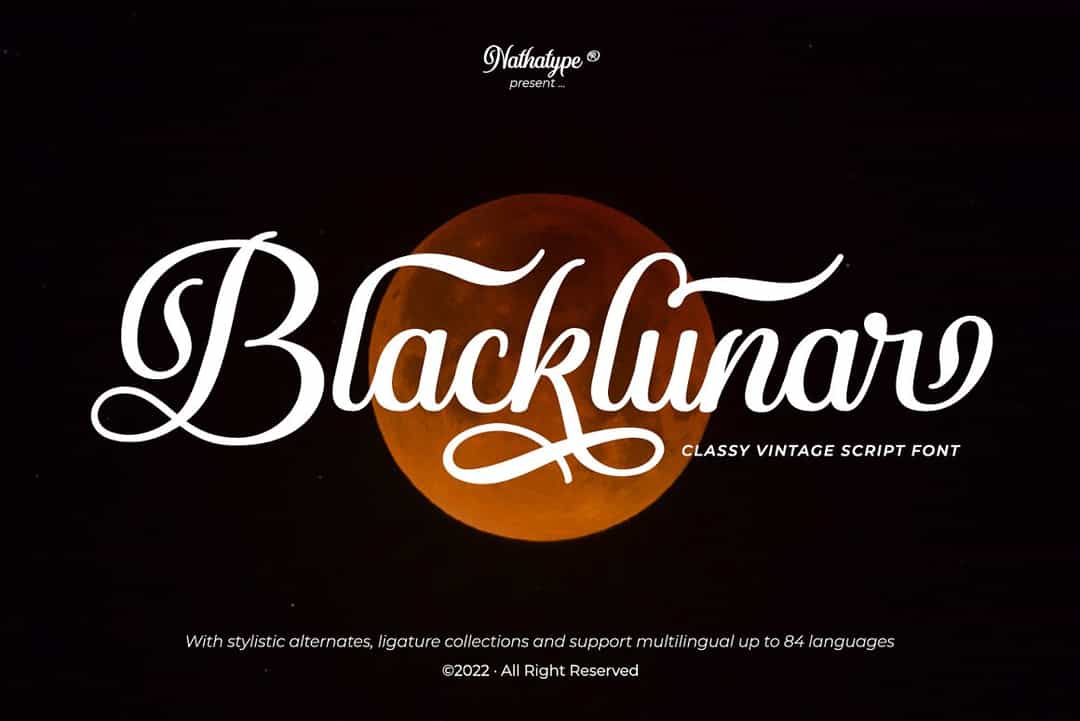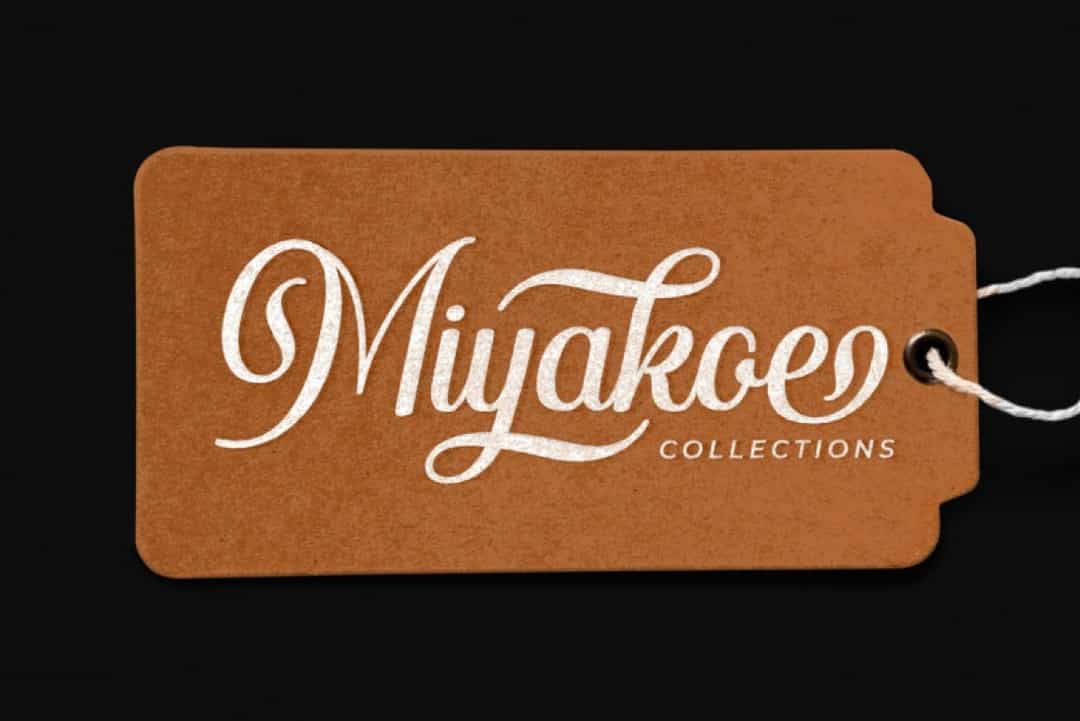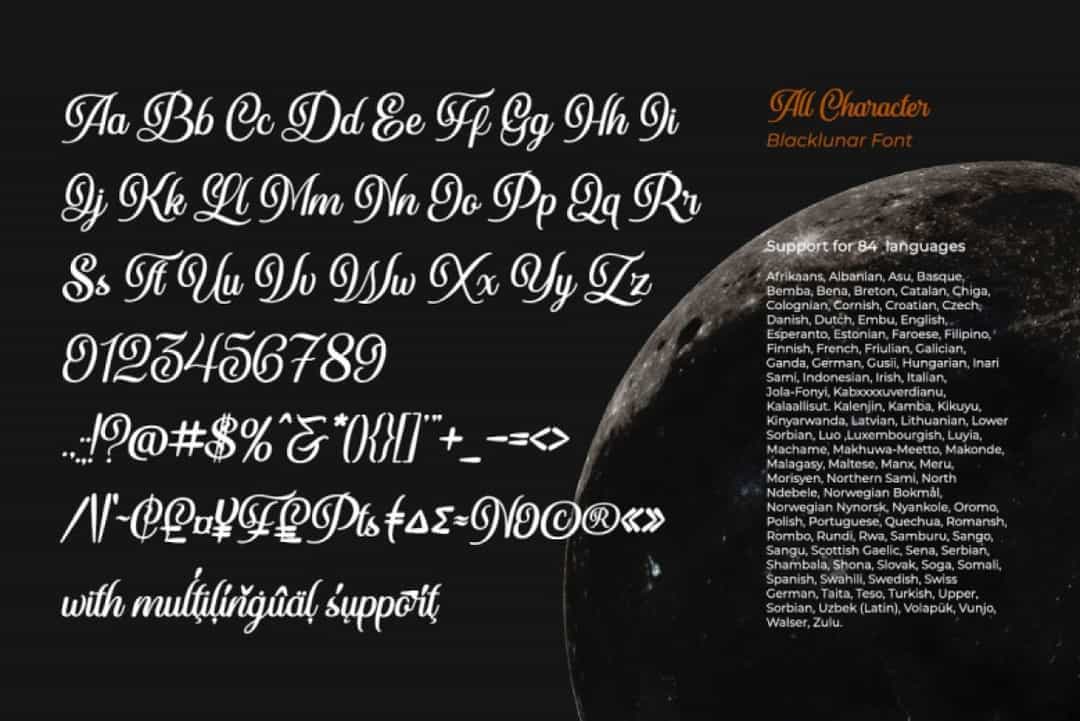
Blacklunar is a calligraphy font designed to impress, featuring vintage style that makes people smile. Easy to read and equally suitable as body text or headers. The unique and curvy strokes of certain characters lend this font a vintage aesthetic. Additionally, its diverse set of interesting features allow you to add depth and dimension to your style.